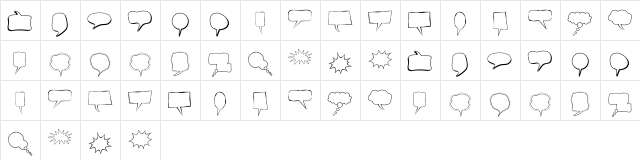
Alin Speech Bubbles Free Font
Alin Speech Bubbles
Design Context for Alin Speech Bubbles
Alin Speech Bubbles has an approachable, lighthearted character - its loose, expressive forms are well-suited to children's content, casual branding, and fun-first design.
Font Pairing: Pairs well with a rounded or humanist sans for body copy, maintaining the friendly tone without relying on Alin Speech Bubbles to carry extended reading.
Pro Tip: Use Alin Speech Bubbles at larger display sizes where its expressive character can land. Pair with a clean, simple sans for body copy to maintain readability.